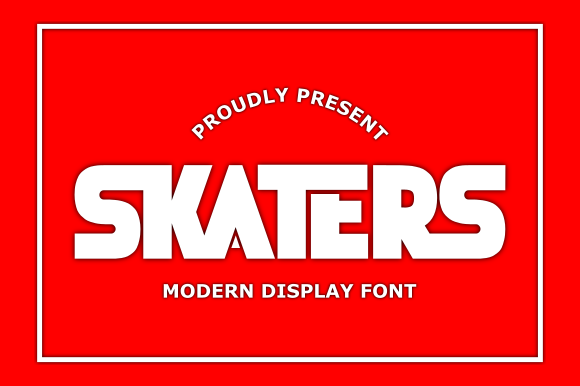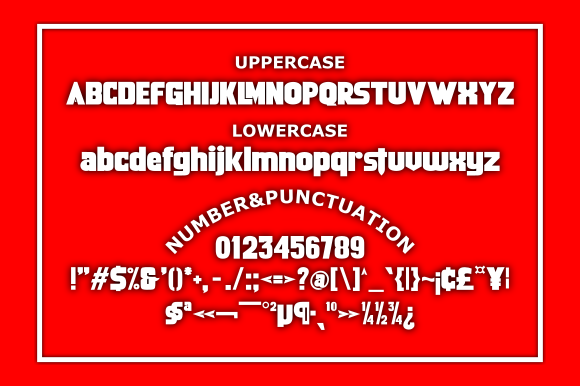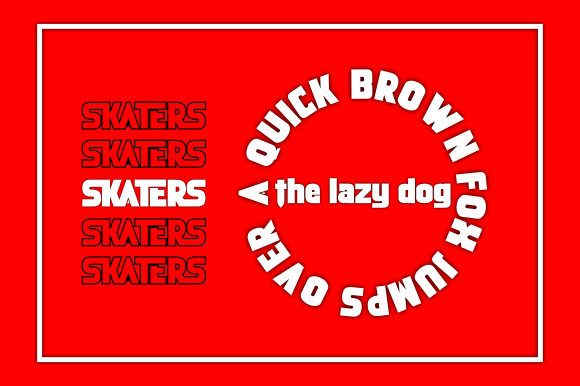
Introduction to Skaters Font
Have you ever been in the middle of a creative project, struggling to find the perfect font to bring your design to life? You scroll through page after page of options, but nothing seems quite right. That’s where the Skaters Font comes in – a game-changing, bold, and chunky lettered display font that’s guaranteed to make your designs stand out.
With its free download and transparent background, the Skaters Font is an incredibly valuable resource for designers looking to add a touch of personality to their work. Whether you’re working on a casual design or a high-quality creative project, this font is sure to elevate your design to the next level.
Key Features of Skaters Font
- High-quality, bold and playful font ideal for creative projects.
- Supports a wide range of languages, making it a versatile design resource.
- Includes 6 styles and 5 weights, providing a range of options for customizing your design.
Honest Review: Skaters Font
As a designer, I’m always on the lookout for high-quality design resources to enhance my creative projects. Recently, I came across the Skaters Font, and I have to say, it’s a solid addition to any design arsenal.
One of the standout features of Skaters Font is its unique, playful style ✨. The font is perfect for projects that require a touch of whimsy and fun, such as children’s books, social media graphics, or even a skateboarding-themed website.
- What works well:
- High-quality design makes it perfect for print and digital projects
- Limitations:
- Not suitable for formal or professional projects, as it may come across as too casual
- No additional font styles or weights available for purchase
Overall, I’d say Skaters Font is a great design resource for designers looking to add some personality to their creative projects. While it may have some limitations, its unique style and high-quality design make it a valuable addition to any design library.
Using Skaters Font in Creative Projects
Skaters Font is a high-quality design resource that can add a unique touch to your creative projects. It’s perfect for designs with a transparent background, allowing you to easily overlay text on top of images or other design elements.
To get the most out of Skaters Font, experiment with different font sizes, colors, and styles to create a unique look. You can also combine Skaters Font with other design elements, such as images or graphics, to add depth and interest to your design.
Skaters Font is perfect for a variety of creative projects, including:
– Social media graphics
– Blog posts and articles
– Business cards and brochures
– Posters and flyers